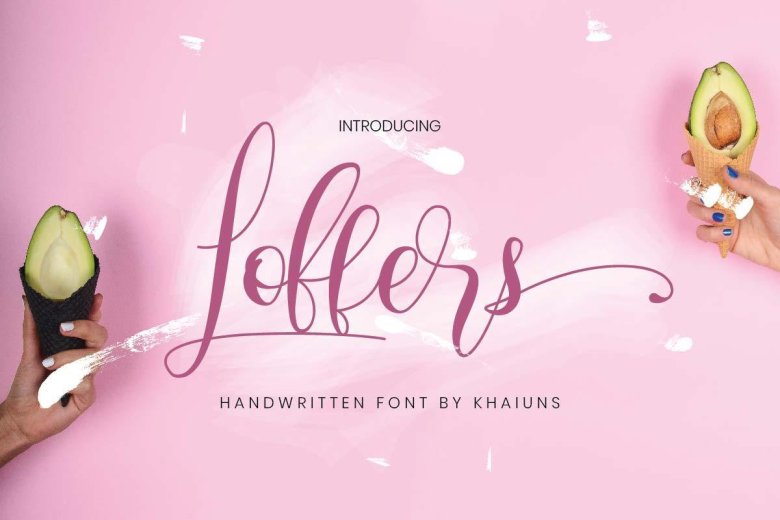
Loffers Calligraphy Script Font
Loffers Calligraphy Script Font feels incredibly elegant and flowing. It looks stunning on wedding invitations, thank you cards, quotes, greeting cards, logos, business cards and every other design which needs a handwritten touch.
It features a varying baseline, smooth lines, gorgeous glyphs and stunning alternates. This font is free for PERSONAL USE! Link to purchase full version and commercial license: HERE